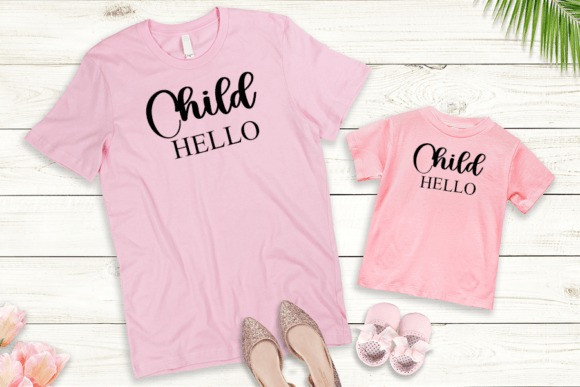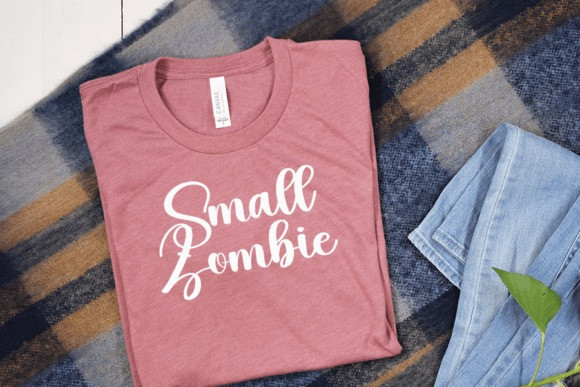
Peach Font
Peach Font is a beautiful and refined handwritten font. Classy and modern, it is perfect for logos, branding, invitations, stationery, wedding designs, social media posts, and much more!